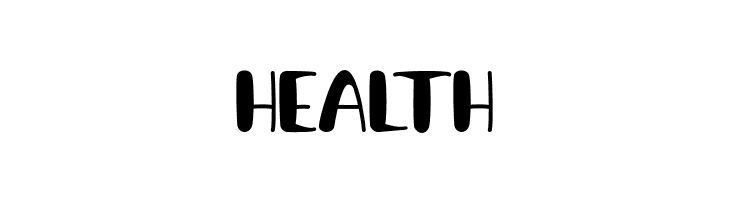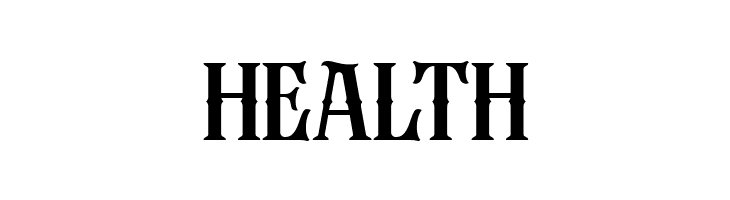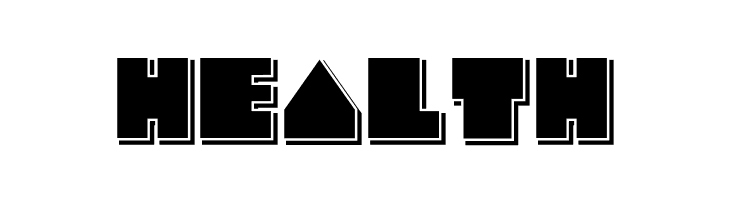
A geometric, angular font with tall, narrow letterforms and a modern aesthetic.
A geometric, angular font with a futuristic and bold design.
A cursive, handwritten font with a chalk-like texture.
A rugged, distressed font with a hand-crafted, organic feel.
A playful, rounded font with a hand-drawn feel and consistent bold strokes.
A playful, handwritten font with bold, rounded strokes and a casual style.
A hand-drawn, playful font with irregular strokes and an artistic flair.
A geometric, angular font with intersecting lines and a bold, modern style.
A futuristic, angular font with sharp, intersecting lines and a bold, dynamic style.
A dynamic, brushstroke-style font with an artistic and expressive flair.
A bold, modern serif font with unique curves and strong presence.
A cursive, handwritten font with elegant, flowing strokes.
A bold, hand-drawn serif font with textured, brush-like strokes.
A bold serif font with dramatic contrast and elegant style.
A playful and elegant script font with smooth, flowing curves.
A bold, playful font with a hand-drawn, artistic style.
A bold, playful font with exaggerated strokes and a whimsical style.
A playful, handwritten font with bold, rounded characters and a casual style.
Medieval-themed illustrative display set with hand-drawn engravings.
A modern, geometric font with clean lines and a uniform appearance.
A modern, geometric font with clean lines and a minimalistic style.
A dynamic and expressive handwritten font with fluid, cursive letterforms.
A playful, casual font blending script and sans-serif styles.
A playful, handwritten font with a casual, flowing script style.
A bold, italic, angular font with a futuristic and dynamic style.
A geometric, angular font with a hollow outline and futuristic style.
A hollow, geometric font with sharp angles and a futuristic style.